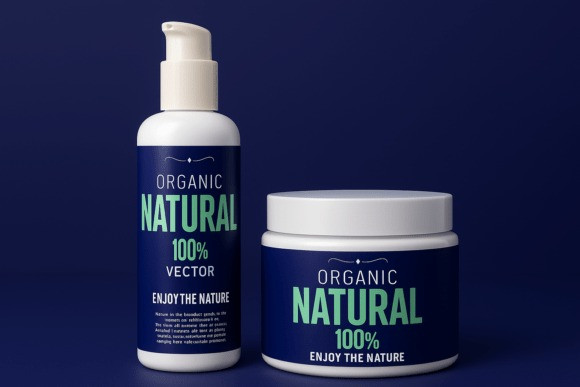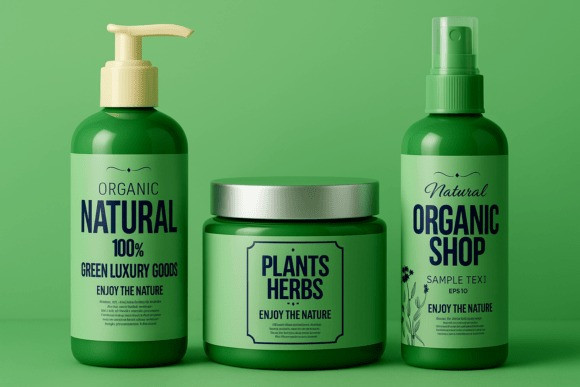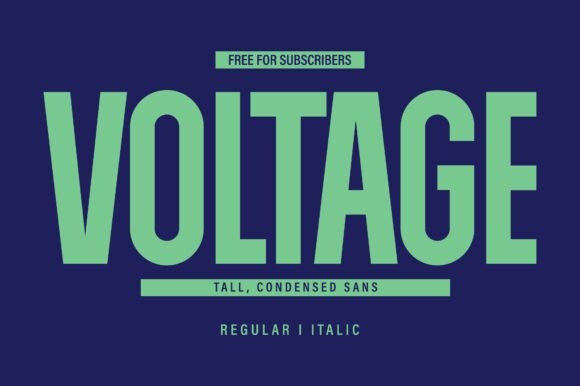
VOLTAGE FONT
Voltage Font is a striking tall, condensed sans font designed to make your words stand out with power, precision, and style. Its modern and minimalist structure creates a strong visual impact perfect for branding, editorial design, packaging, posters, and digital ads.
Whether you’re designing a luxury logo, creating bold magazine titles, or crafting professional social media graphics, Voltage delivers that sleek, high-voltage aesthetic that instantly grabs attention.
This sans serif masterpiece is built for designers who value clarity, proportion, and visual authority. Every letterform is engineered for maximum legibility, ensuring your message remains clear and captivating across print and screen.